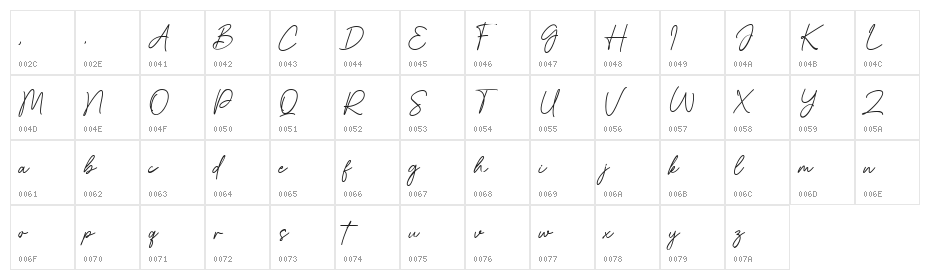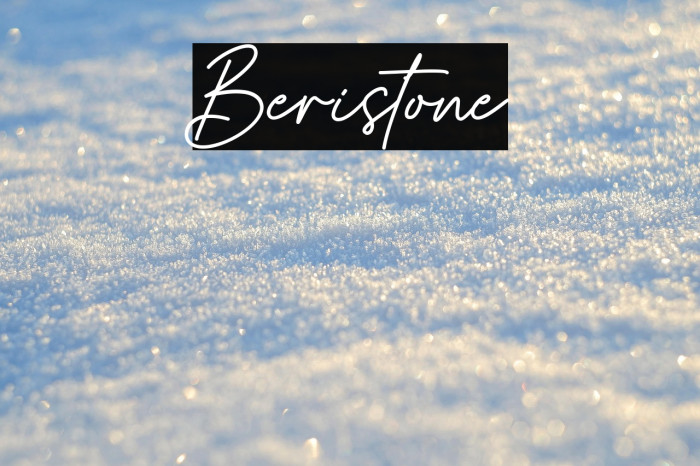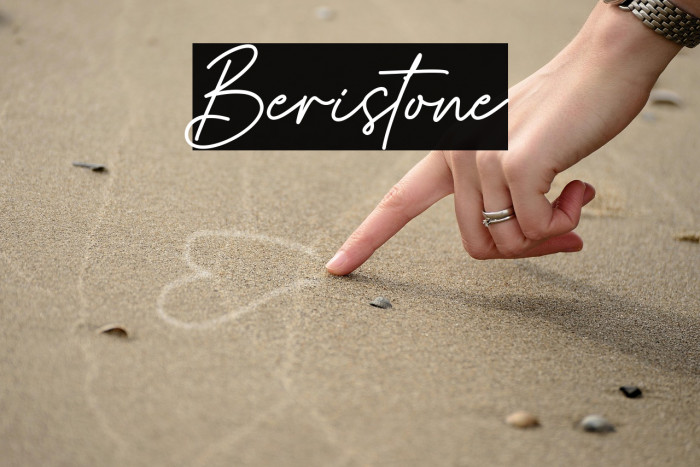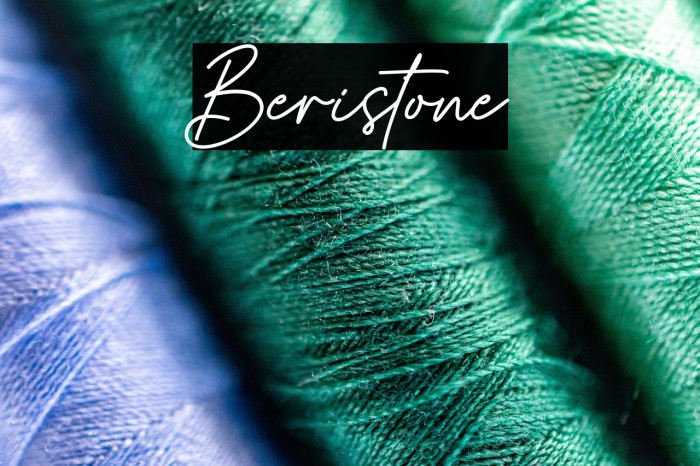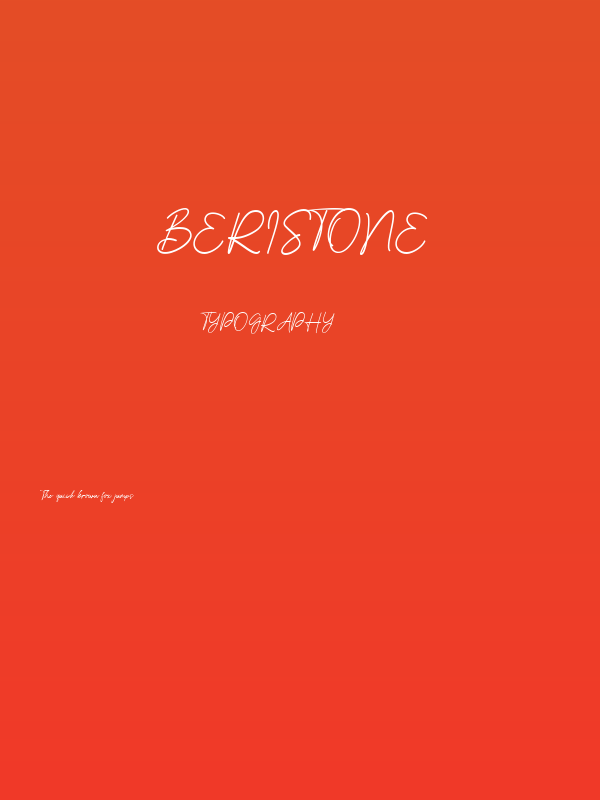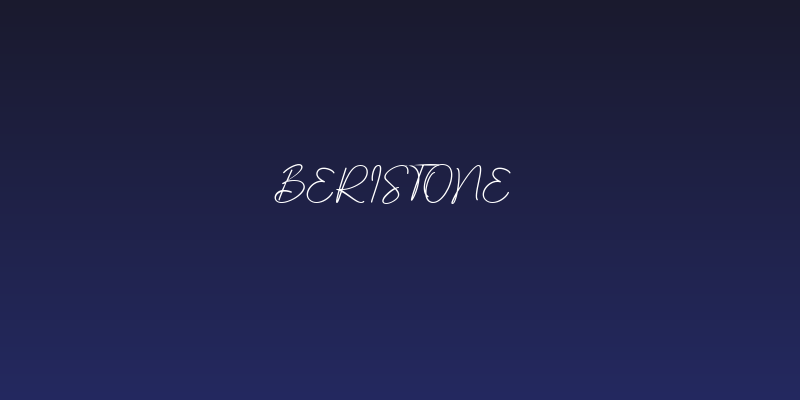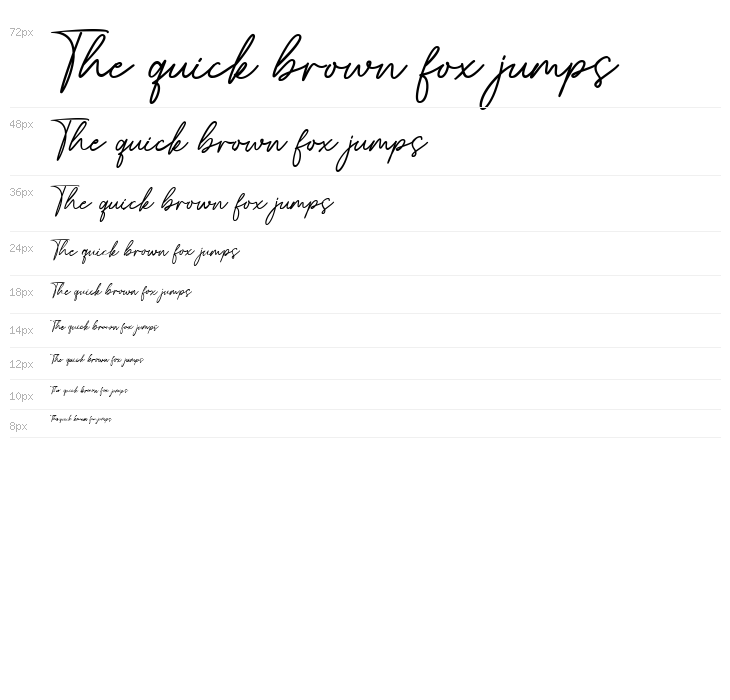
Beristone Font
Beristone Description
A flowing, handwritten script font with elegant, elongated letterforms and natural, connected strokes. The characters have a casual yet refined appearance, with consistent line thickness and slight slant, evoking a personal, signature-like style.
| Overall Style | Decorative, Modern, Handwritten |
| Use Case | Logos, Invitations, Headlines, Social media posts |
| Proposed Projects | Wedding invitations, personal branding, greeting cards, social media graphics, quotes. |